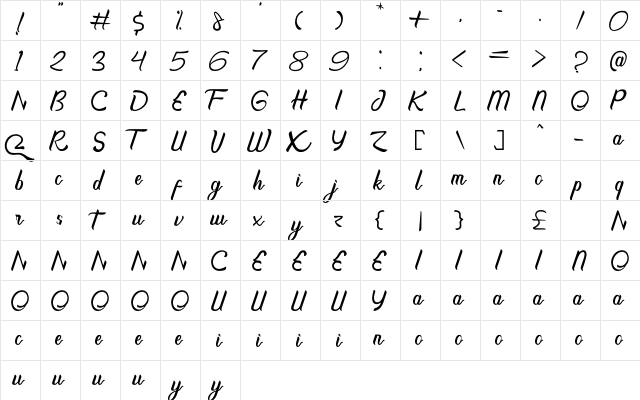
Theremerq Regular
| Foundry | Hafid Trihandoko |
| Designer | Hafid trihandoko |
Design Context for Theremerq Typeface
Theremerq is a composed and adaptable typeface that performs quietly and consistently across a wide range of design contexts.